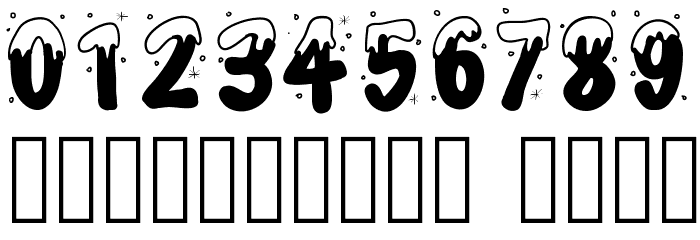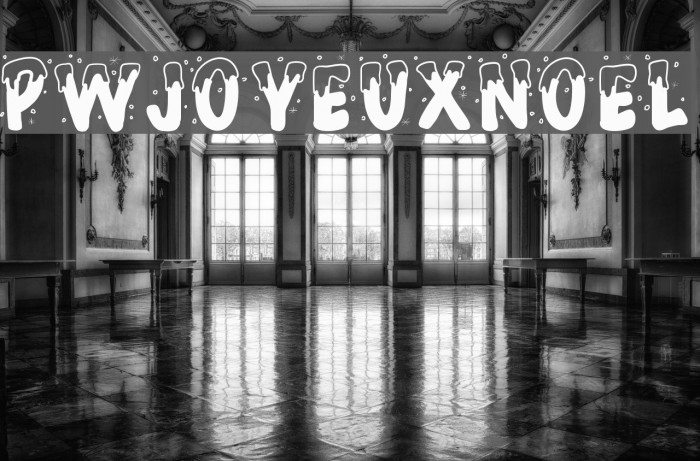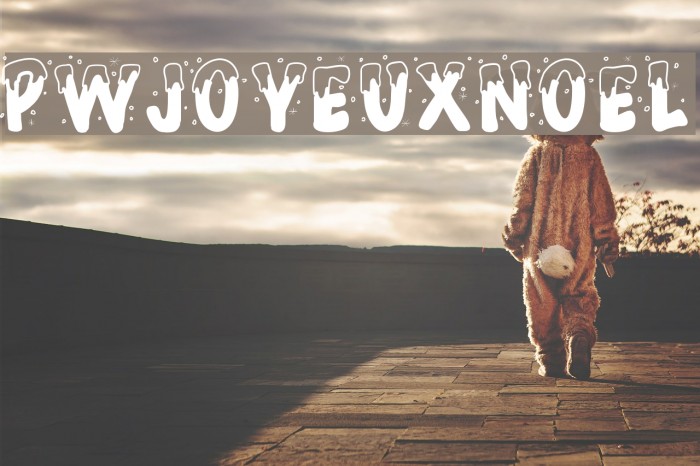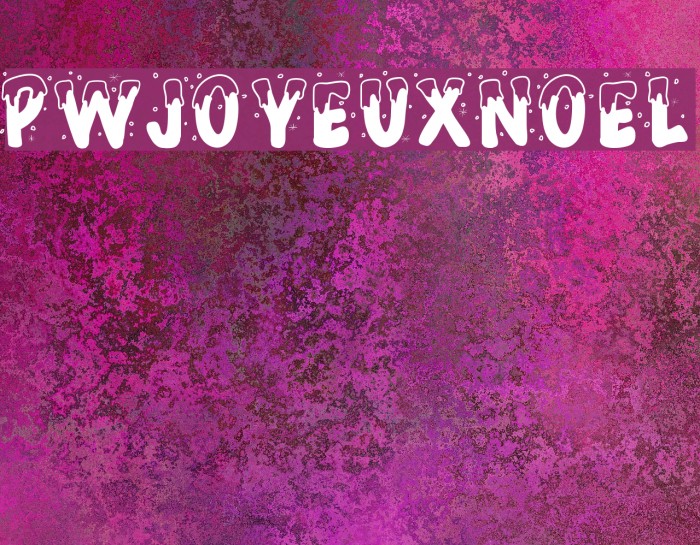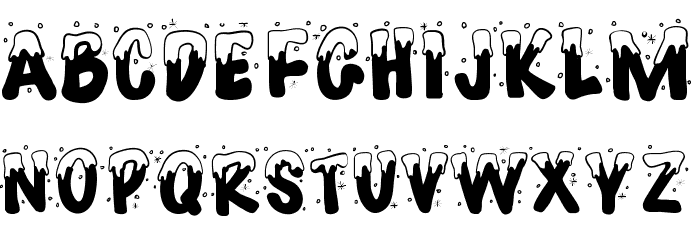
PWJoyeuxNoel Font
This playful and festive font features bold, rounded characters adorned with whimsical snow caps and decorative elements like stars and dots, evoking a cheerful winter or holiday theme. The uppercase and lowercase letters maintain a consistent style, with a slightly exaggerated, cartoonish appearance that adds to its charm. The numbers and special characters are equally stylized, ensuring a cohesive look across all text elements. This font's unique design makes it ideal for seasonal projects, capturing the essence of joy and celebration.
A festive, snow-capped font perfect for holiday-themed designs.
• Proposed Projects: Ideal for holiday cards, festive banners, Christmas-themed posters, and playful winter event invitations.
• Category: Decorative/Display
• Bold: Yes
• Italic: No
• Weight: Bold
• Width: Normal
• Character Spacing: Normal
• Contrast: Low
• Overall Style: Decorative
• Use Case: Headlines, Logos, Posters